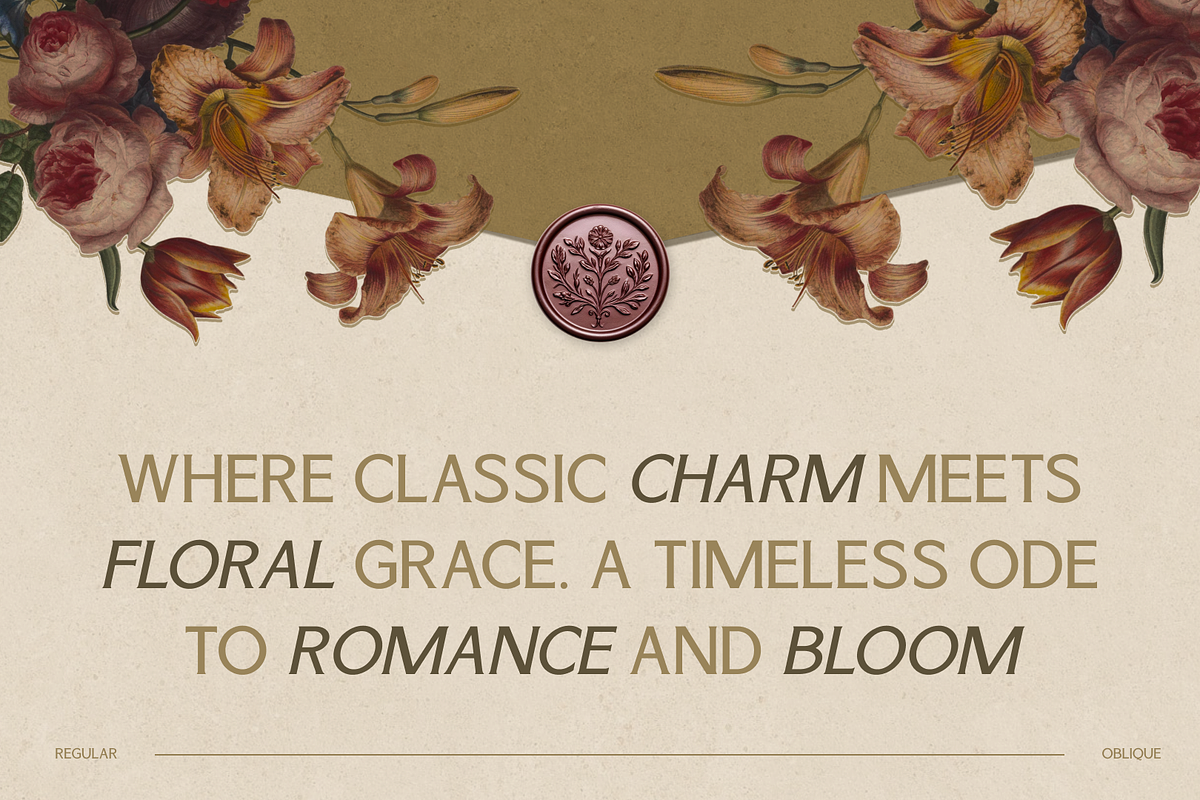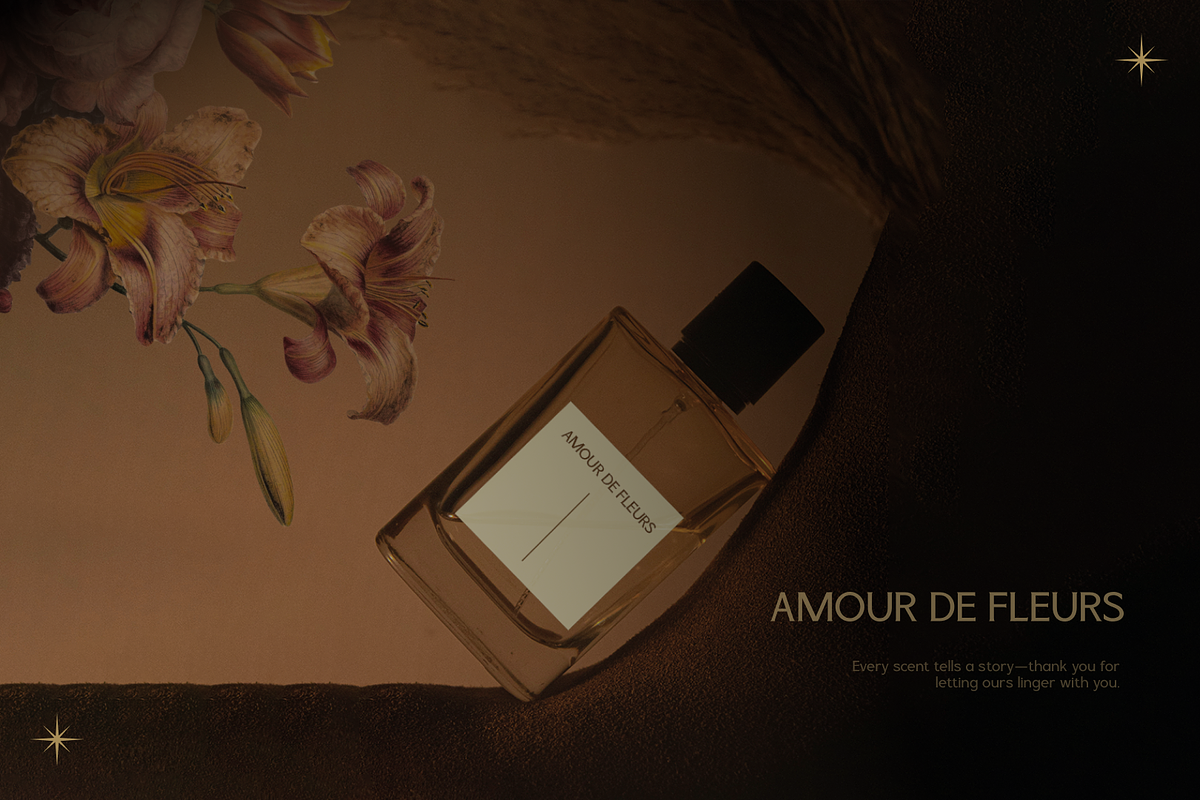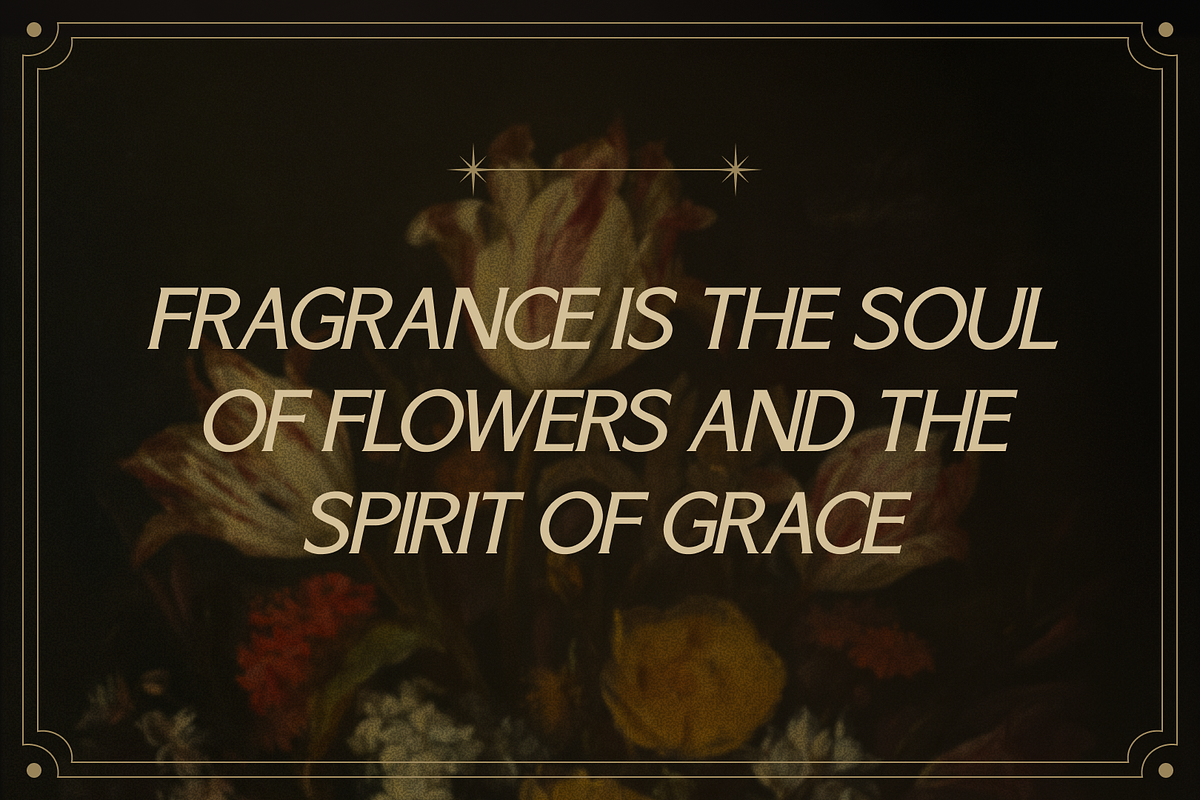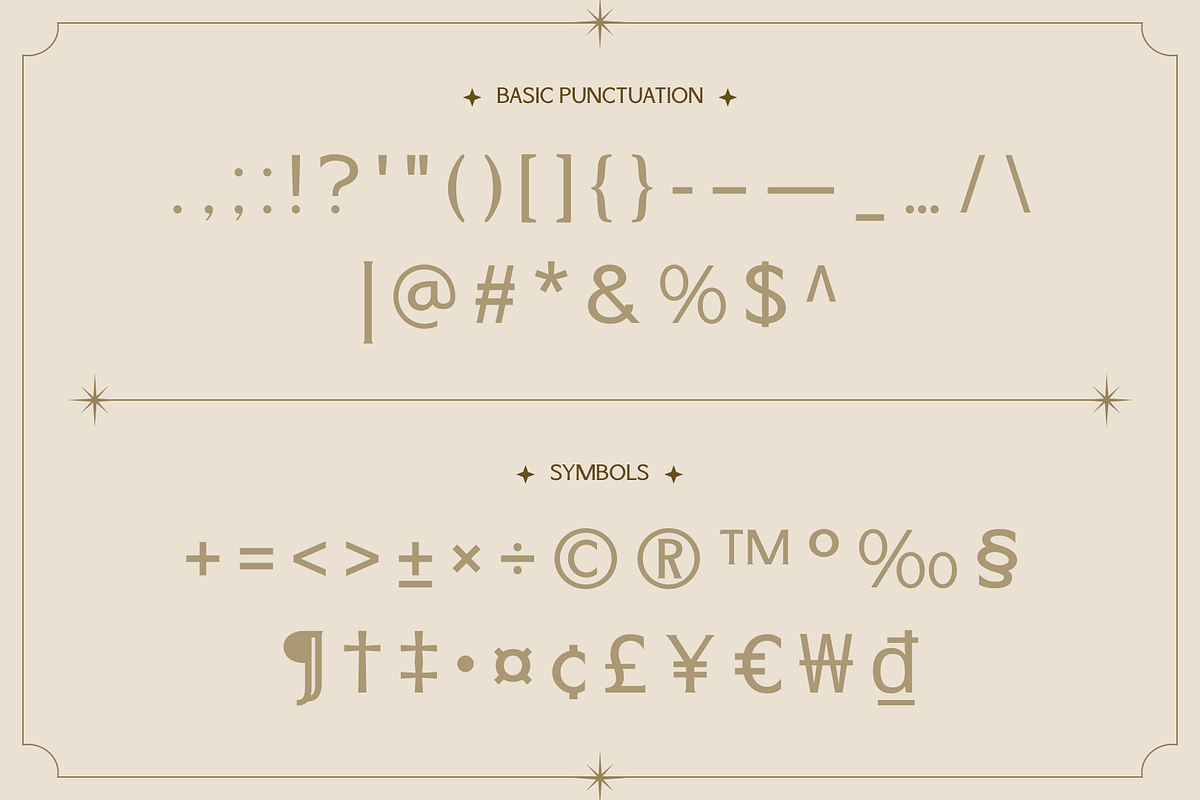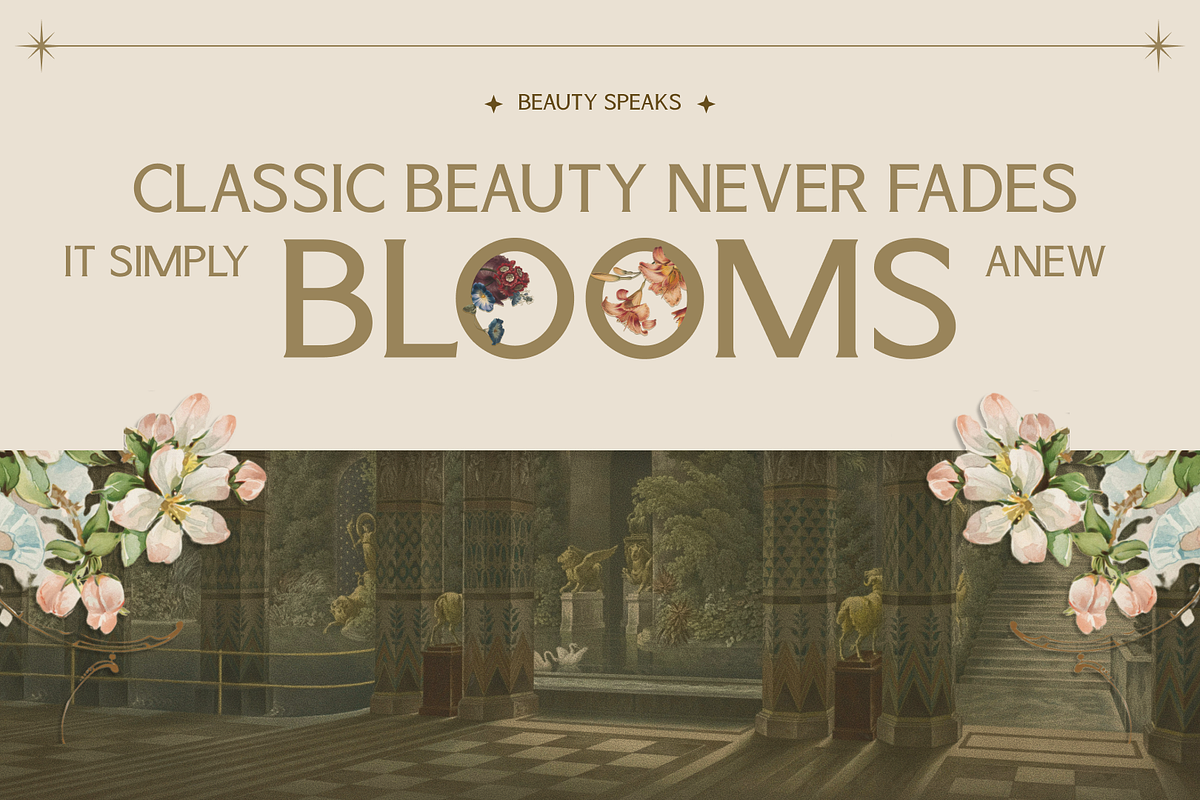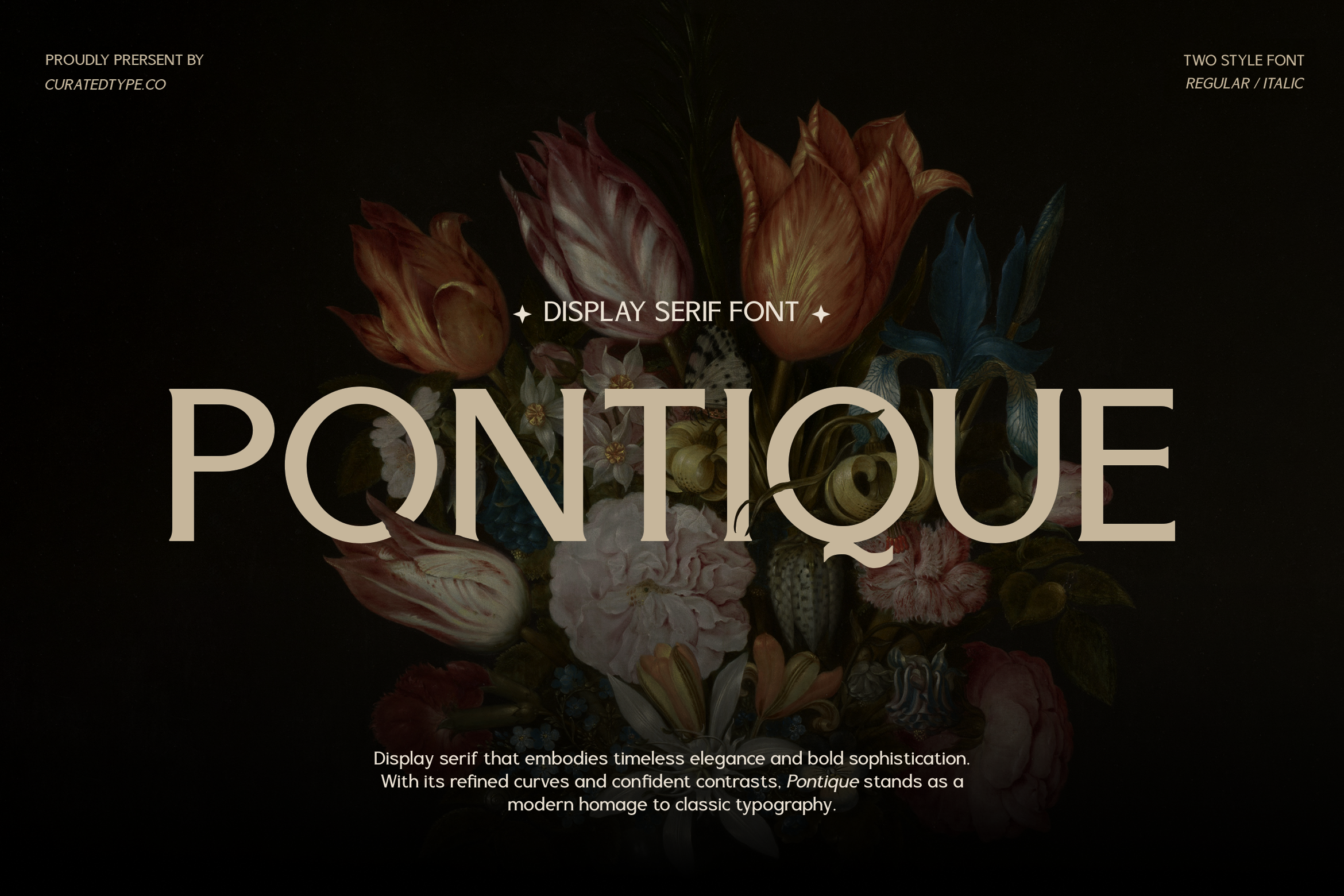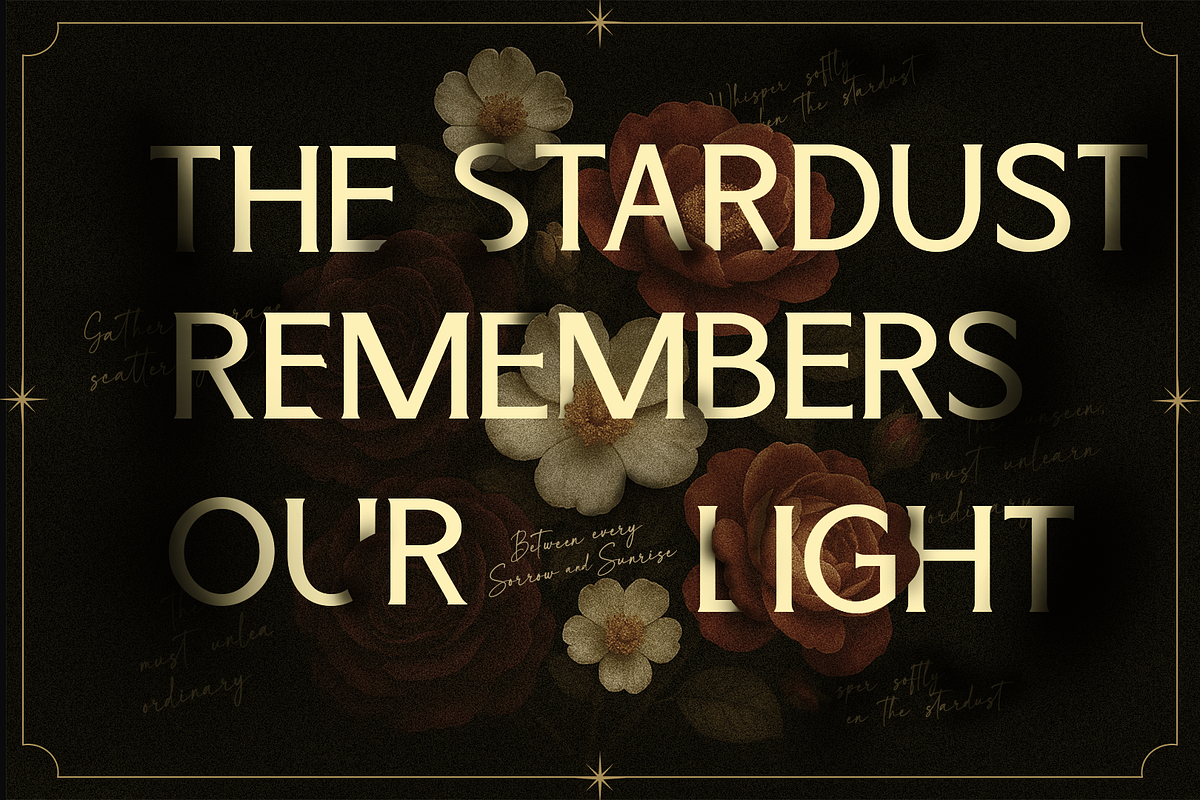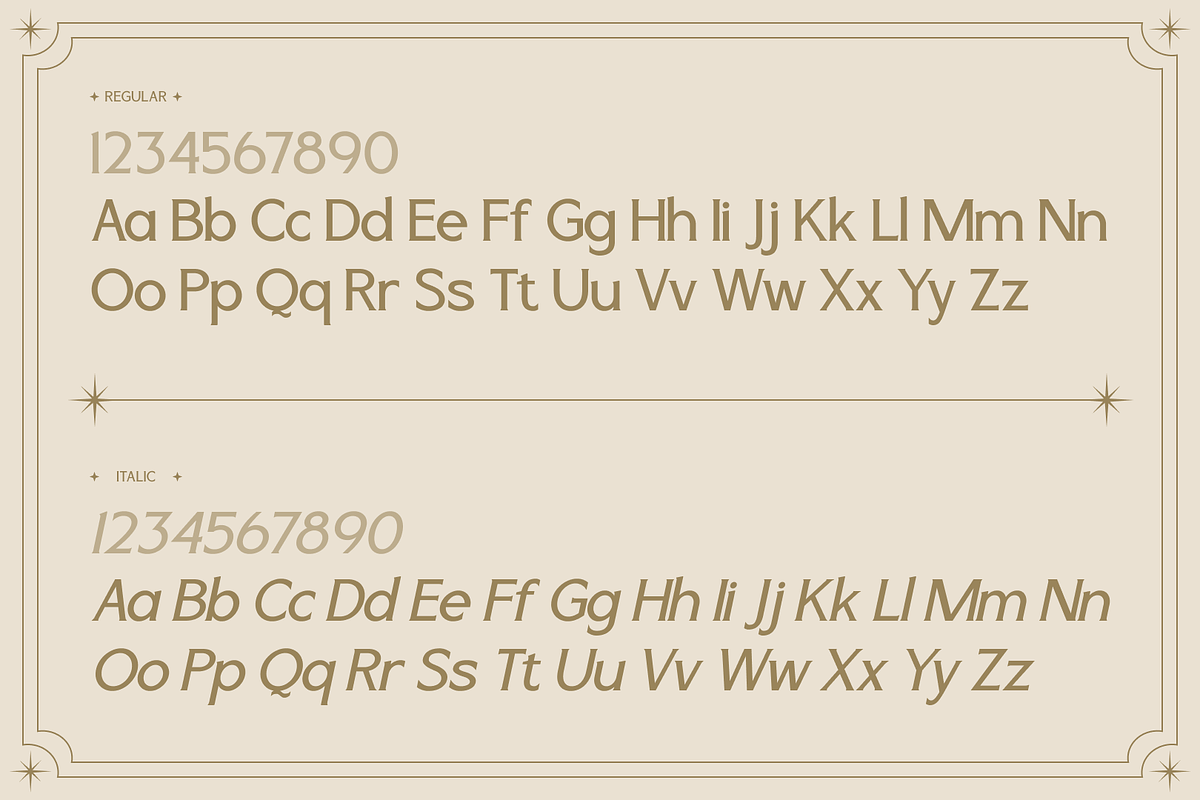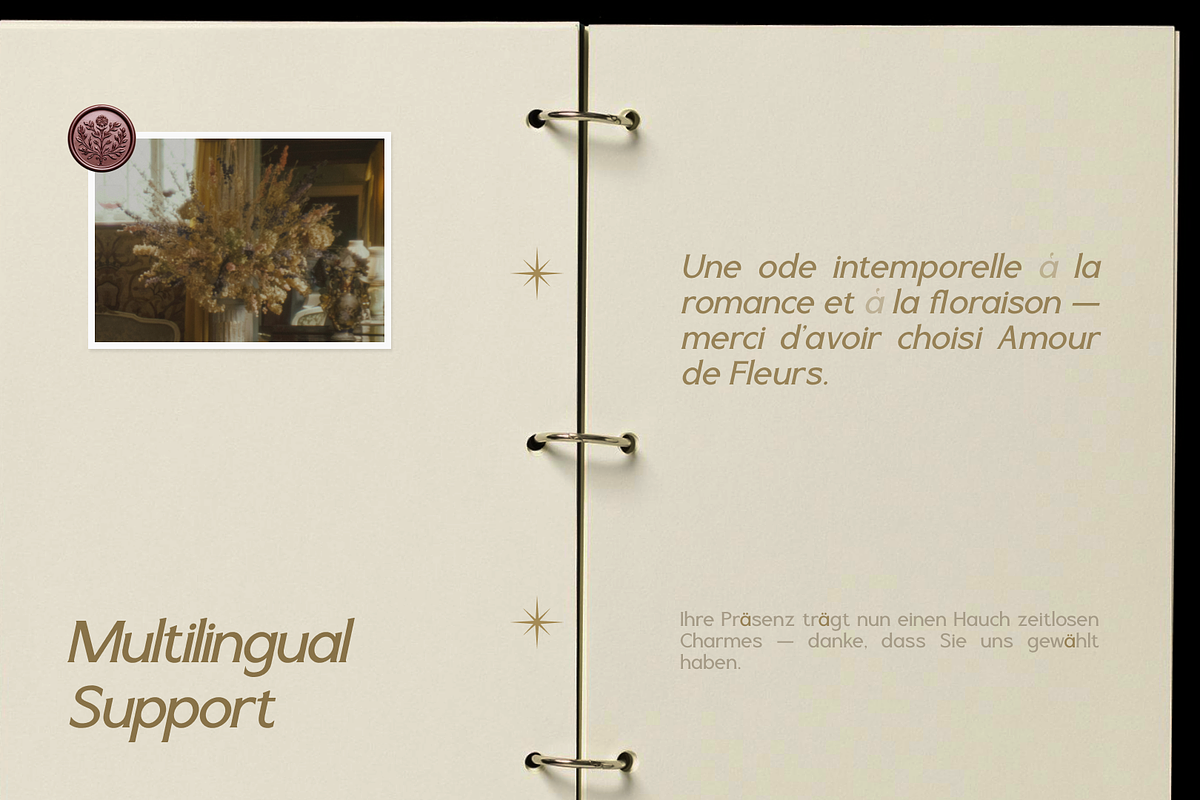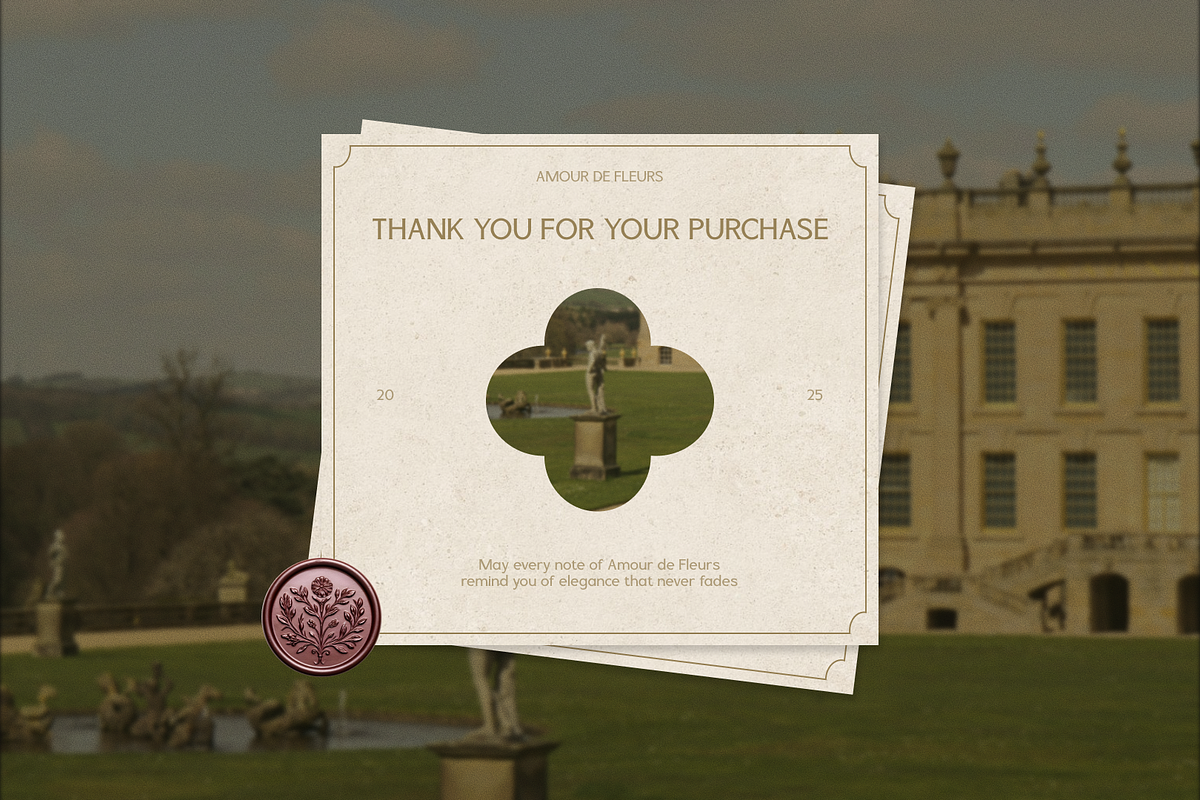
Pontique - Modern Serif Font
Pontique is a sophisticated display serif that embodies timeless elegance through bold sophistication. Drawing inspiration from neoclassical typography, it features high-contrast strokes and refined, sharp serifs that command attention without shouting. The design balances varying stroke widths with confident, fluid curves, creating a visual rhythm that feels both statuesque and organic. The uppercase characters—particularly the wide ‘O’ and the distinctively swashed ‘Q’—offer a modern homage to traditional Roman proportions, making it ideal for headlines that require a touch of grandeur.
Beyond its structural beauty, Pontique is built for versatility in high-end design. Including both a structured Regular weight and a graceful Italic, the typeface transitions seamlessly from authoritative editorial headers to delicate, romantic sub-headings. With its comprehensive character set and multilingual support, this font is perfectly suited for luxury branding, fashion editorials, wedding stationery, and packaging design where the typography needs to act as the centerpiece of the visual identity.